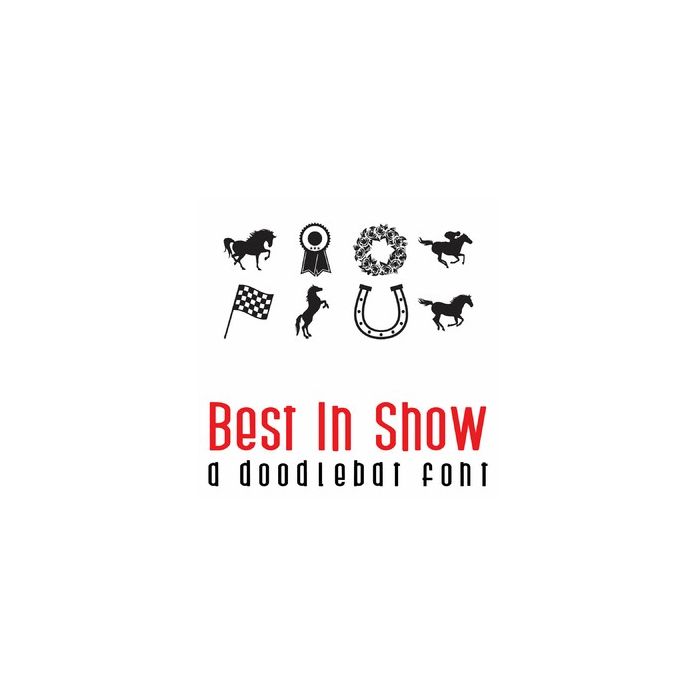
This fun full-color doodlebat font features 26 horse and Kentucky Derby images, perfect for cards, crafts, gifts, scrapbook pages, planner stickers, and more!